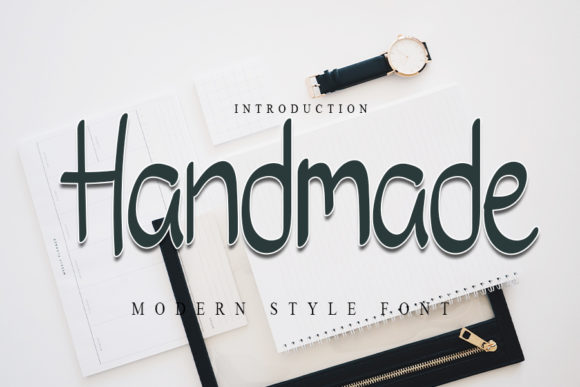
Handmade is a modern handwritten font. Featuring round lettered and a trendy vibe, this font will elevate each of the designs that you wish to develop!